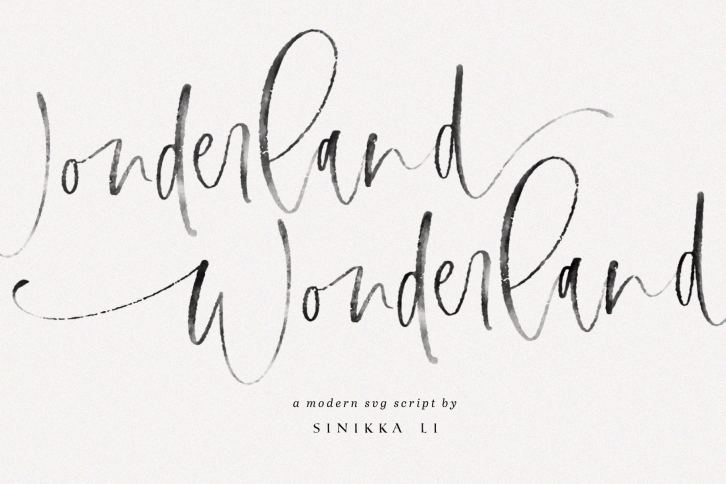
"Wonderland" is a super casual calligraphy script in a realistic watercolor look (SVG version) that makes it the perfect fit for signature logos, printed quotes, wedding invitation cards, social media headers, product packaging and a lot more!
The OpenSVG technology is just amazing because it allows us to have so much more detail & transparency in the letters, which can give your text a realistic hand-painted look.
• Wonderland SVG: Uppercase & lowercase letters, numbers, punctuation, ligatures and lowercase + uppercase swashes - this is the OpenSVG version of the font. All the letters are basically bitmap images (instead of vectors).
• Wonderland Solid: Basically includes the same as above, but a vectorised, normal version for people who are not able to use the SVG version but still want to use the font. Remember that this version doesn't have the paint look or transparency.
• Multilingual support for the non-SVG version for the following languages included: English, French, Italian, Spanish, Portuguese, German, Swedish, Norweigen, Danish, Dutch, Turkish, Finnish, Romanian, Hungarian and Estonian (if something is missing or you've got a request please let me know and I'll try to add it to the next update).